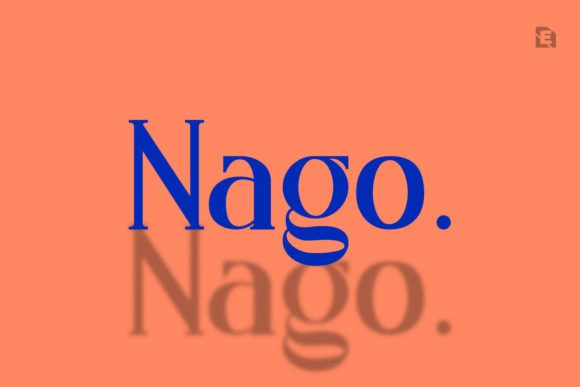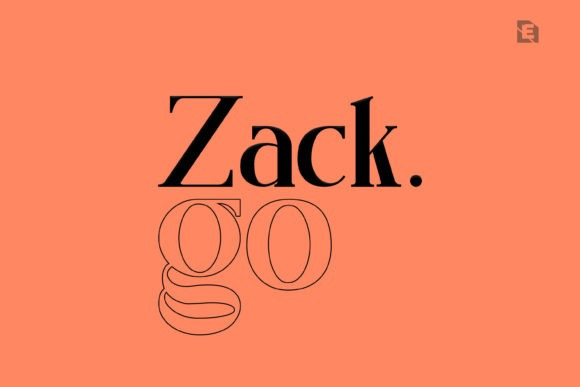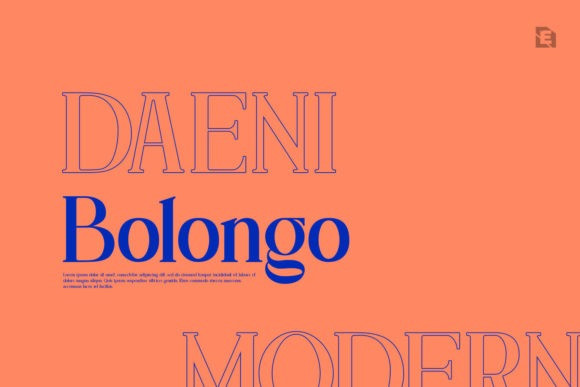
Nago Font
Nago is an elegant and thin lettered serif font. It can easily be matched to an incredibly large set of projects, so add it to your creative ideas and notice how it makes them stand out!